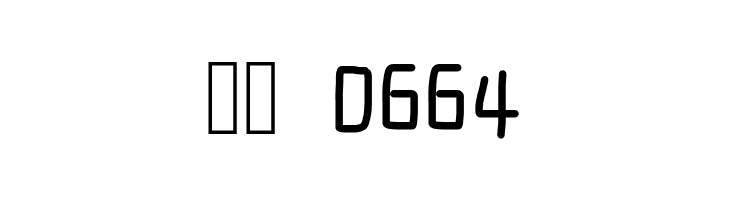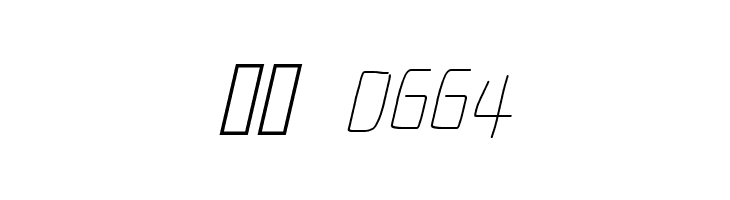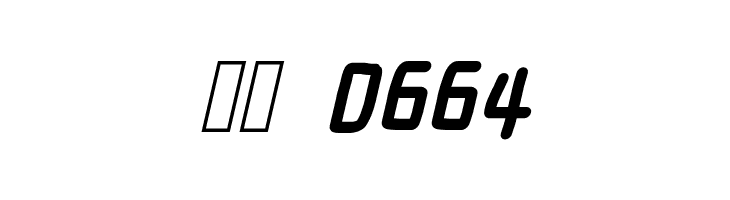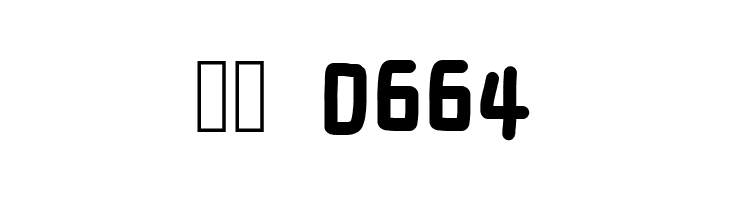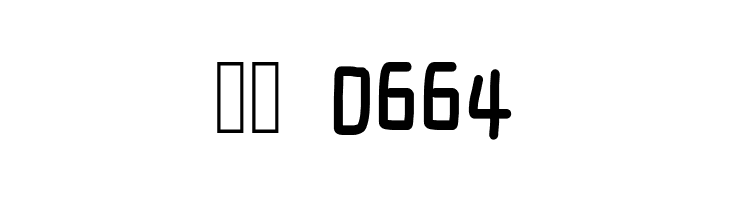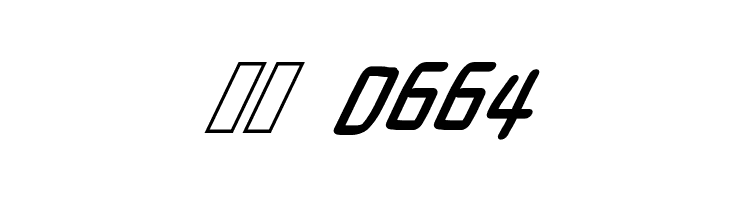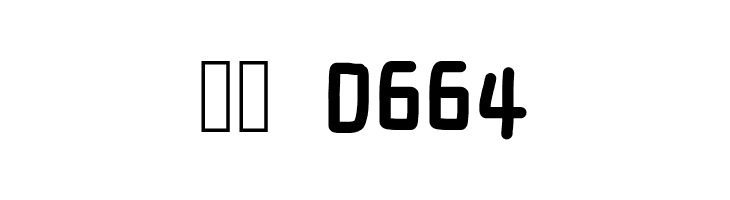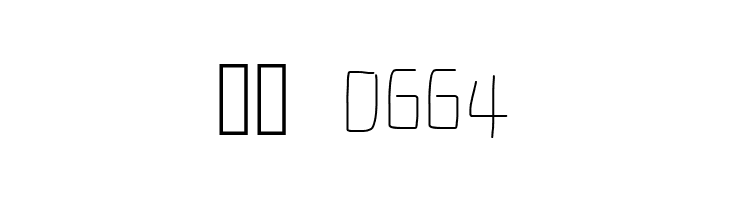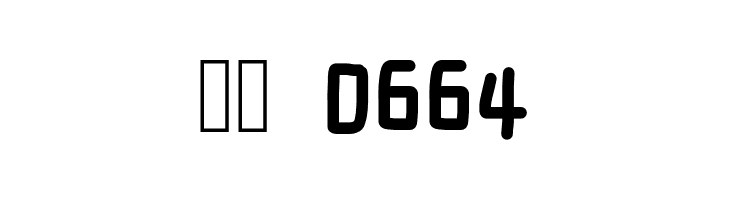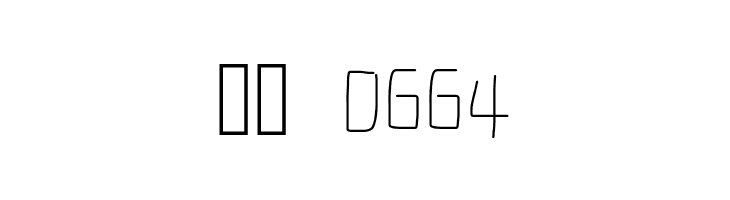
A bold, geometric font with a modern, digital aesthetic.
A futuristic, extra-thin italic font with angular, geometric characters.
A bold, italicized font with a modern, dynamic style and rounded edges.
A bold, rounded, and playful handwritten font with a casual aesthetic.
A modern, hand-drawn font with an electronic circuit-inspired style.
A bold, italicized font with angular lines and a futuristic style.
A bold, geometric font with a modern, digital aesthetic.
A modern, geometric font with a hand-drawn, playful aesthetic.
A sleek, modern font with an electronic, extra-light, italicized style.
A bold, rounded font with a modern, slightly futuristic style.
A bold, rounded font with a playful and modern aesthetic.
A geometric, minimalist font with a modern, electronic style.
A modern, ultra-thin font with a geometric, electronic style.
A bold, ultra-thick font with a modern, electronic style.
A bold, extra-heavy font with a modern, digital aesthetic and rounded geometric shapes.
A thin, geometric font with a minimalist and modern design.
A playful, hand-drawn font with a modern, informal style.
A bold, geometric font with a modern, digital aesthetic.
A geometric, digital-inspired font with semi-bold weight and rounded corners.
A bold, rounded font with a modern and playful style.
A bold, modern font with geometric and slightly rounded characters.
A bold, italicized font with a futuristic and geometric style.
A modern, italic font with an electronic, futuristic design.
A modern, ultra-thin geometric font with a digital and minimalistic style.
A bold, italicized font with a modern, electronic style.
A bold, italicized font with a modern, geometric style.
A bold, modern font with a heavy, electronic style.
A bold, italicized font with a modern, electronic style and tight spacing.